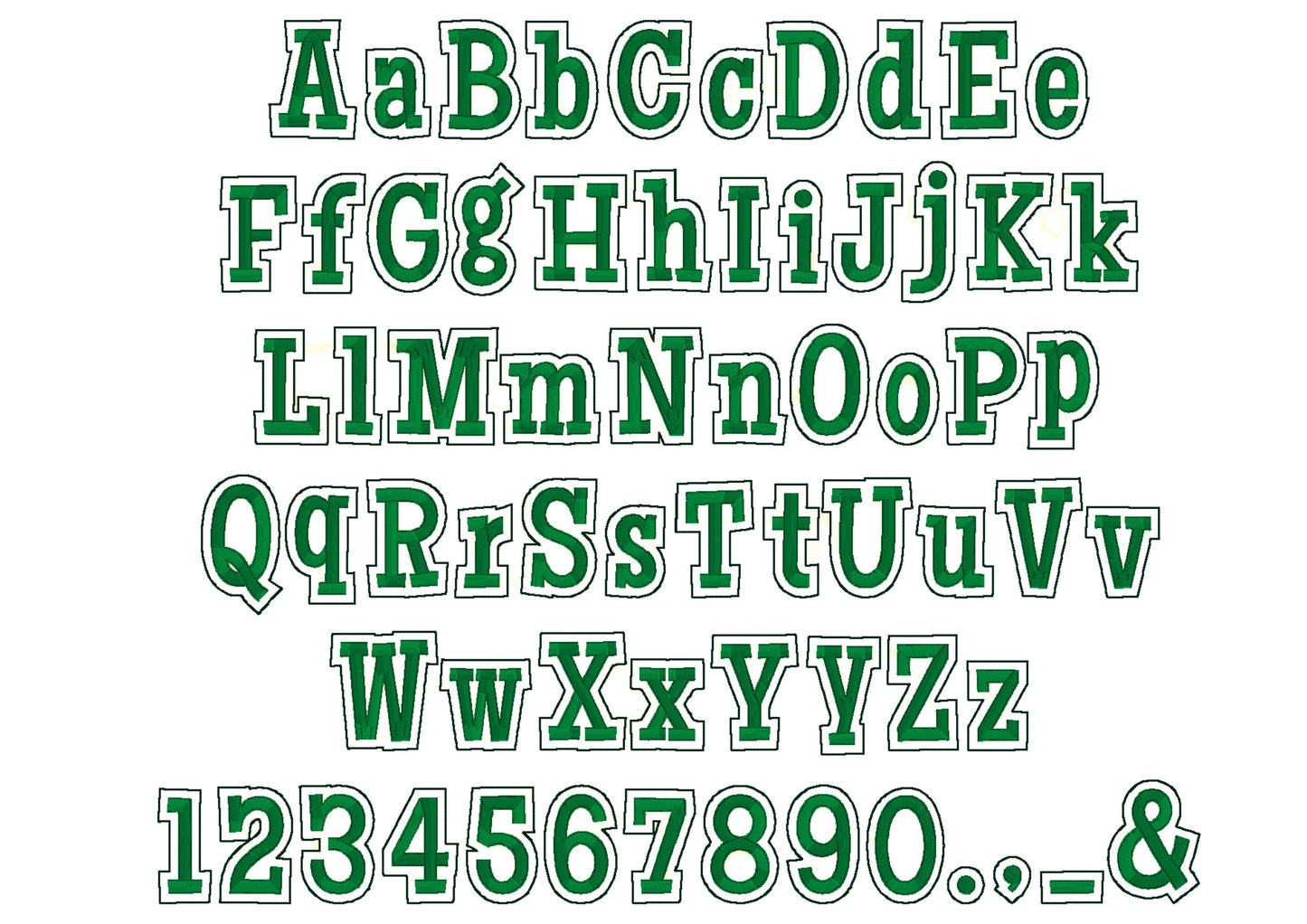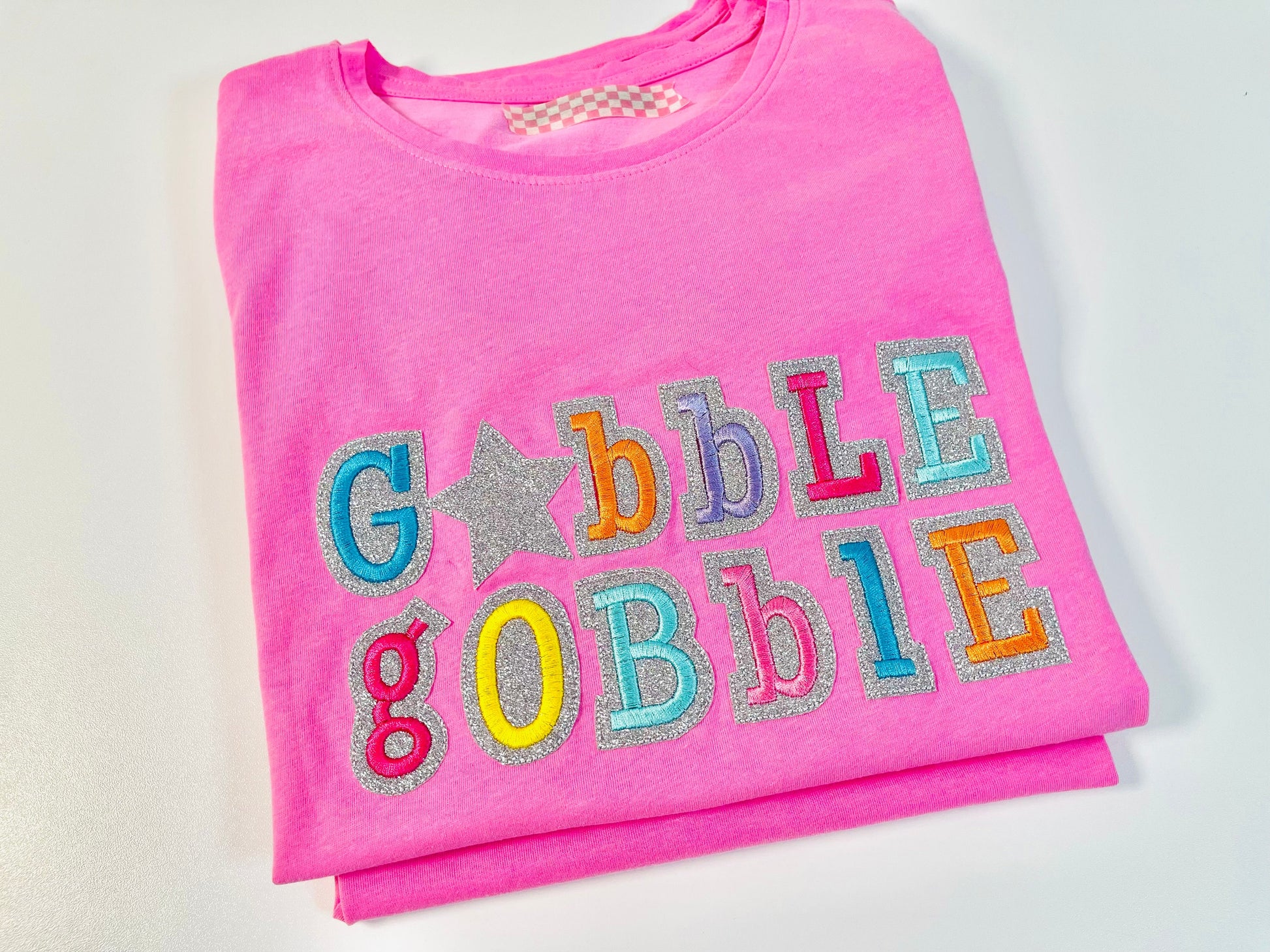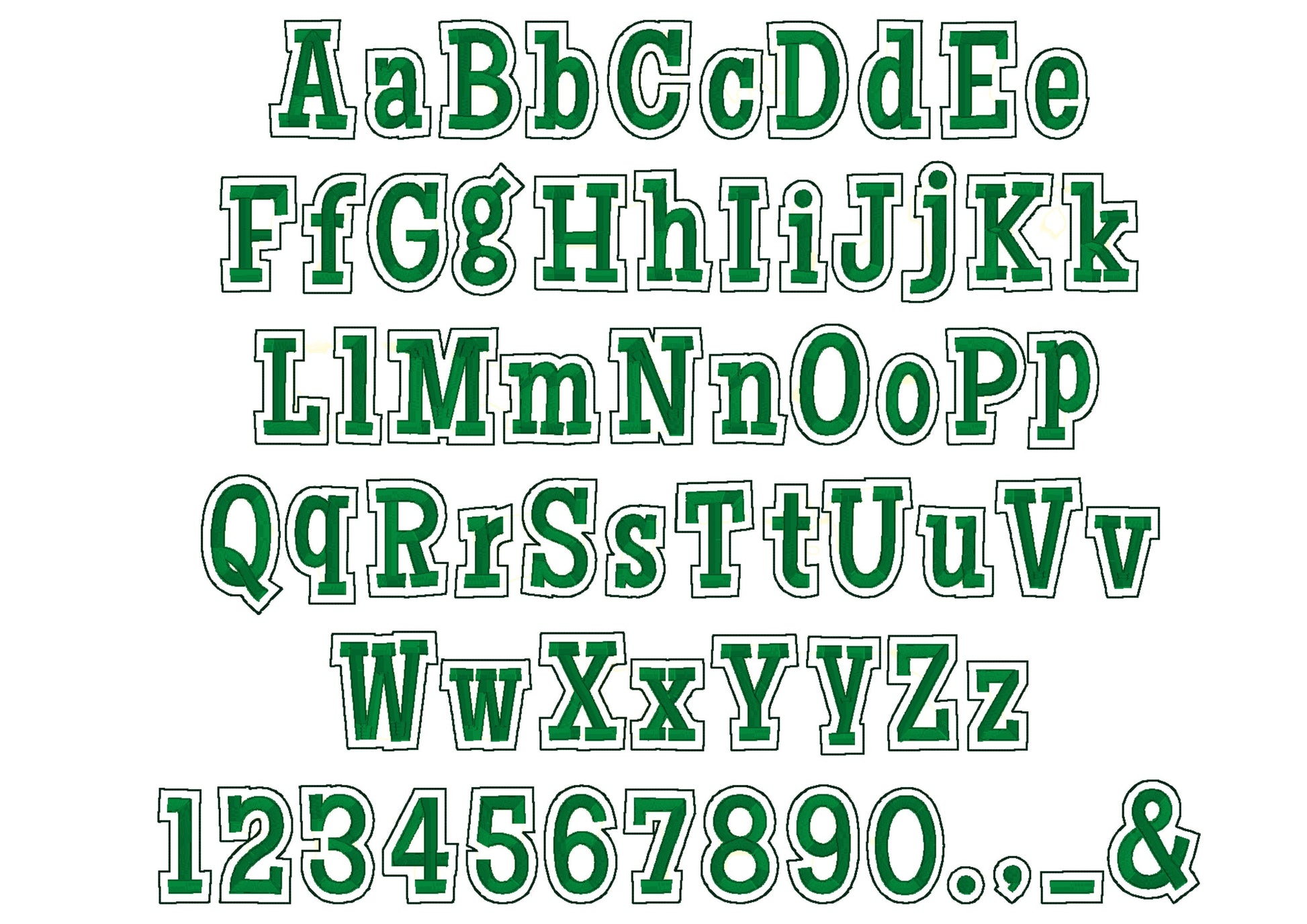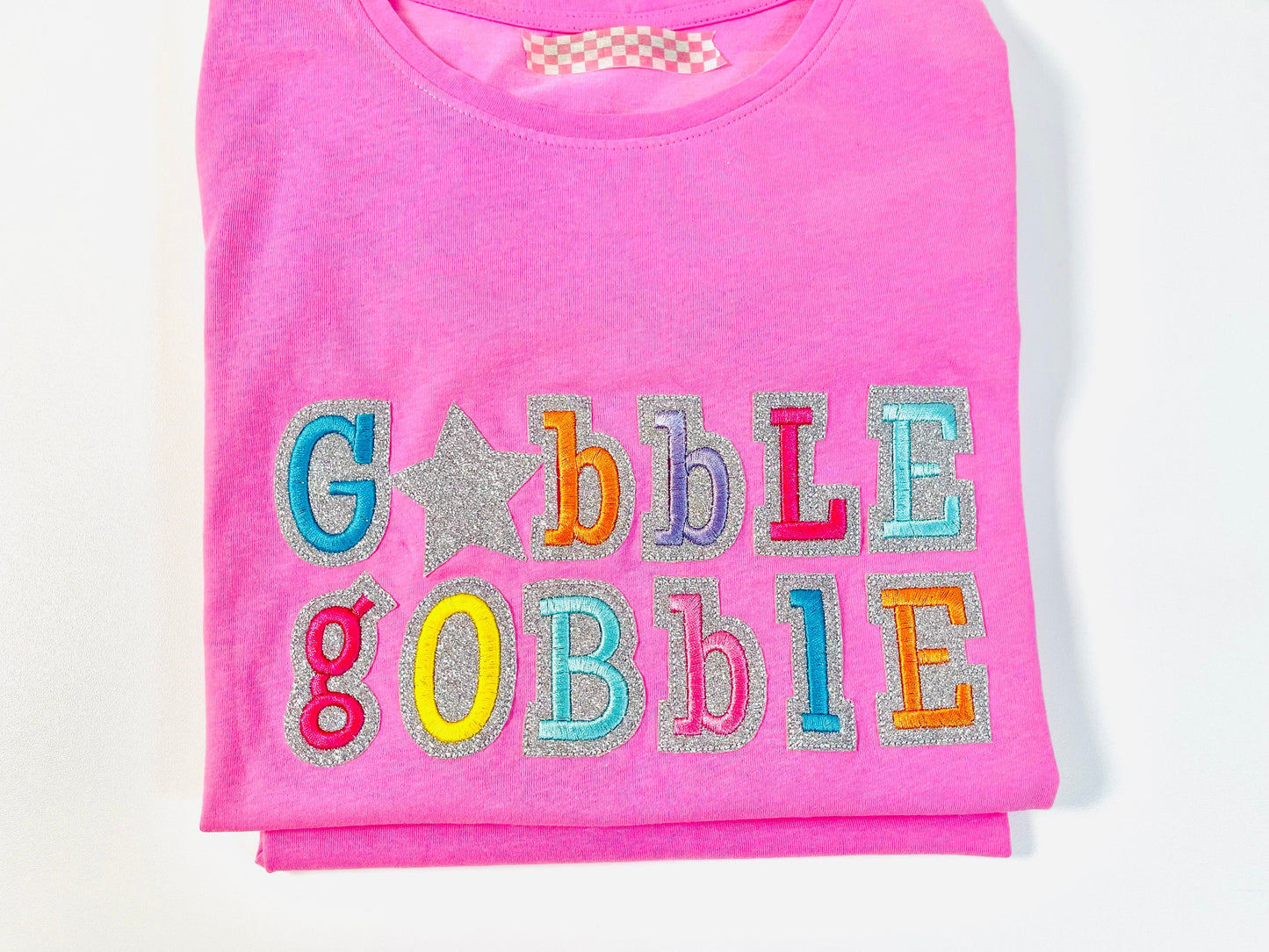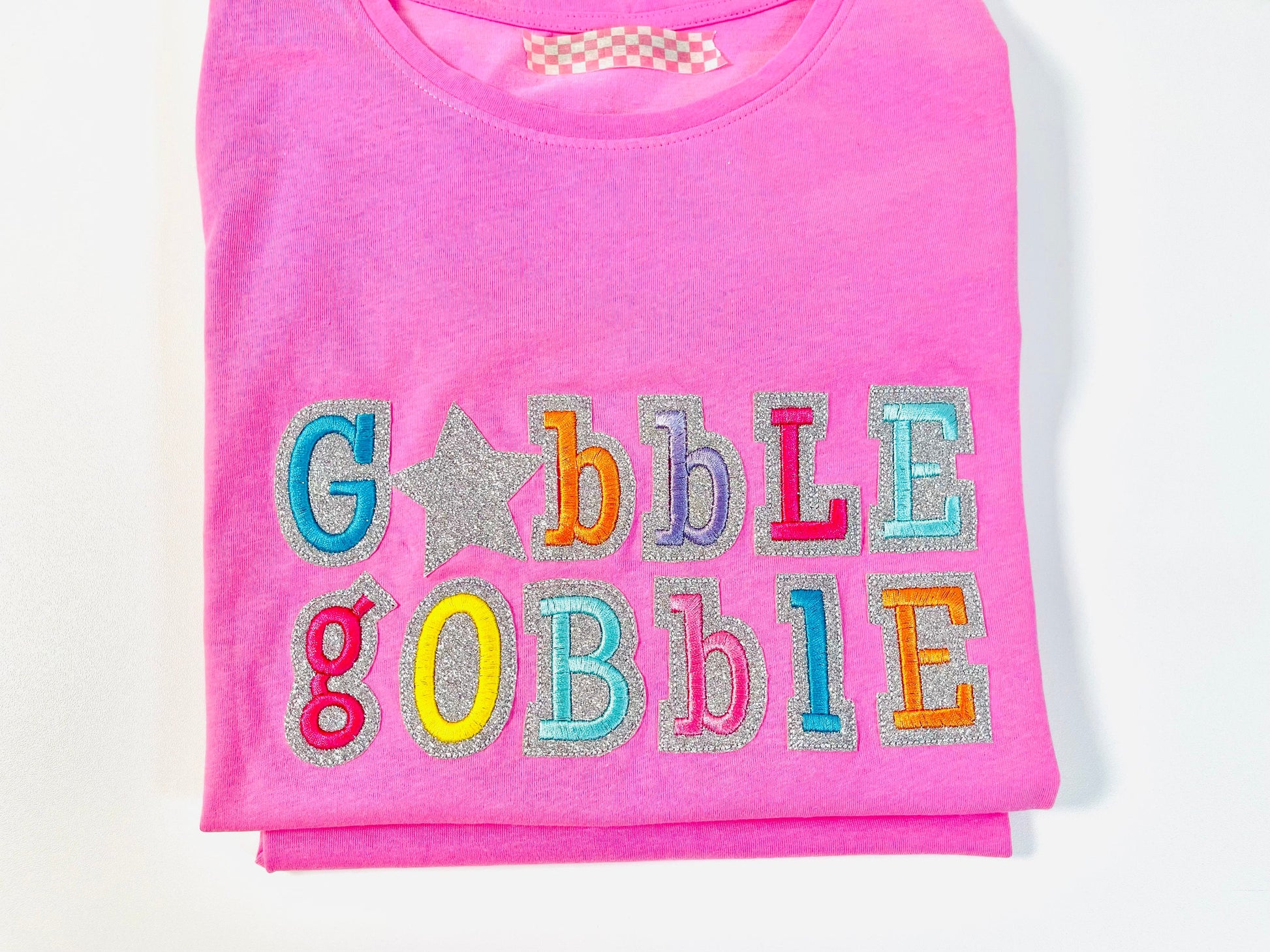
Or click to open the linkA glitter vinyl applique font with a satin stitch edge and outline, in two layers. Sparkly names and words for shirts, bags and girls' outfits.
Letters come in five sizes: 1.8, 2.2, 2.7, 3.2 and 3.9 inches. A small star add-on comes in 1, 1.3, 1.5, 1.7 and 2 inches.